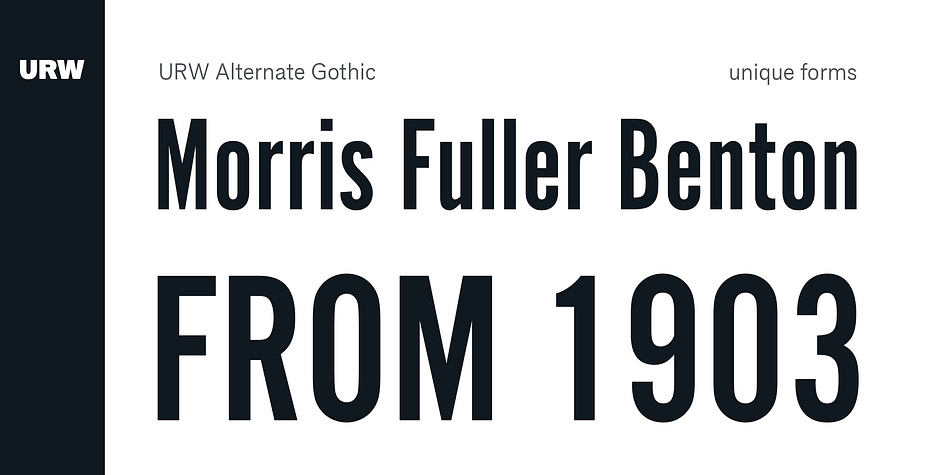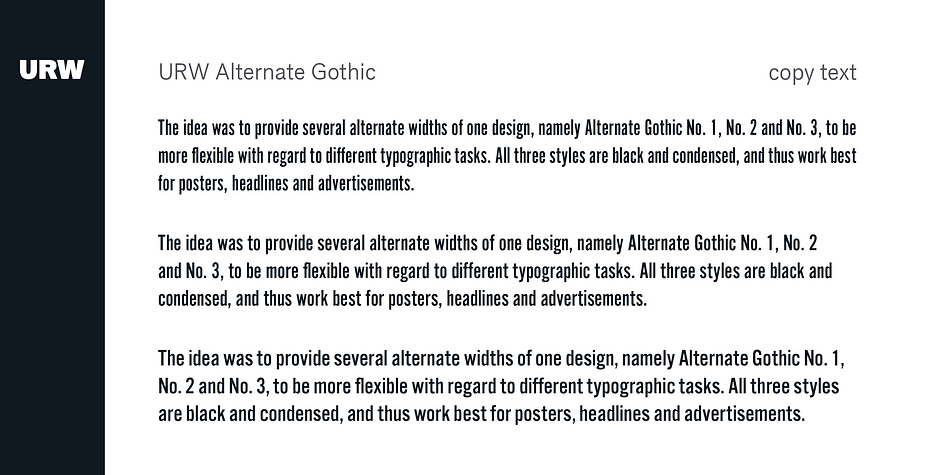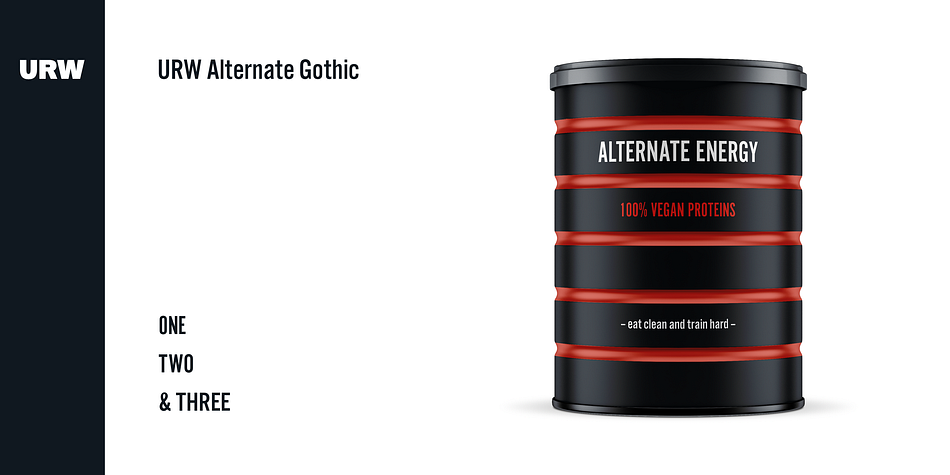
Designed by Morris Fuller Benton, URW Alternate Gothic is a display sans font family. This typeface has three styles and was published by URW Type Foundry.
Alternate Gothic was designed in 1903 by Morris Fuller Benton for American Type Founders (ATF). The idea was to provide several alternate widths of one design, namely Alternate Gothic No. 1, No. 2 and No. 3, to be more flexible with regard to different typographic tasks. All three styles are black and condensed, and thus work best for posters, headlines and advertisements.
Foundry | URW Type Foundry |
Released | 1903 |
Designer | Morris Fuller Benton |